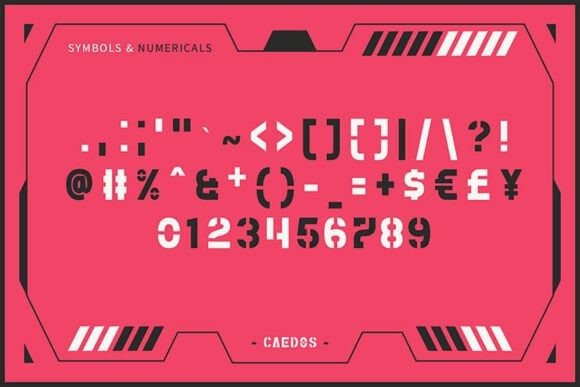
Caedos Font
Caedos Font is a futuristic stencil font designed with sharp precision and tech-inspired geometry.Ideal for sci-fi branding, video games, user interfaces, and cinematic titles, this font brings a high-tech, modular aesthetic to your designs.
With its cut-out elements and bold presence, Caedos offers a strong identity perfect for posters, military themes, robotics, and cyber environments. It’s sleek, confident, and engineered for innovation.